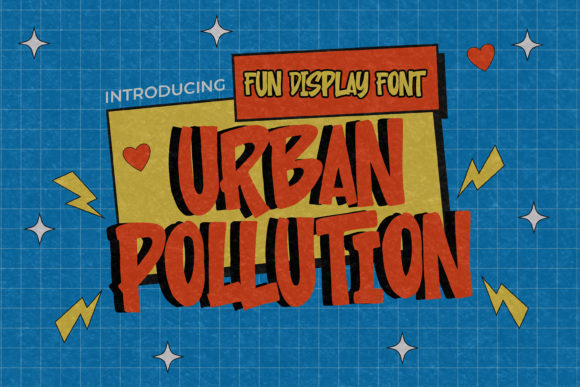
In a world saturated with monotonous fonts, Urban Pollution emerges as a breath of fresh air, a font family that sparks imagination and ignites creativity. Its sans serif strokes dance across the page like a playful melody, evoking a sense of nostalgia and timeless charm.
With Urban Pollution, your designs will transcend the ordinary and embrace the extraordinary. Picture your T-shirts adorned with witty slogans, your sportswear pulsating with energy, your logos radiating personality, and your advertisements captivating audiences with their bold and playful messages.
This font family is a versatile chameleon, adapting effortlessly to a myriad of designs. Its playful and retro style adds a touch of whimsy to T-shirts, turning them into walking statements of individuality. Urban Pollution infuses sportswear with a dynamic energy, propelling athletes to new heights of performance. Its bold and confident strokes make logos leap off the page, demanding attention and leaving a lasting impression.
But Urban Pollution's talents don't stop there. It lends a touch of sophistication to advertisements, grabbing eyeballs and driving sales. Its playful charm enlivens clothing designs, transforming everyday garments into expressions of personal style.
With Urban Pollution, the possibilities are limitless. Unleash your creativity and let your designs soar to new heights. Embrace the playful spirit of this font family and watch as your creations come alive with personality and charm.